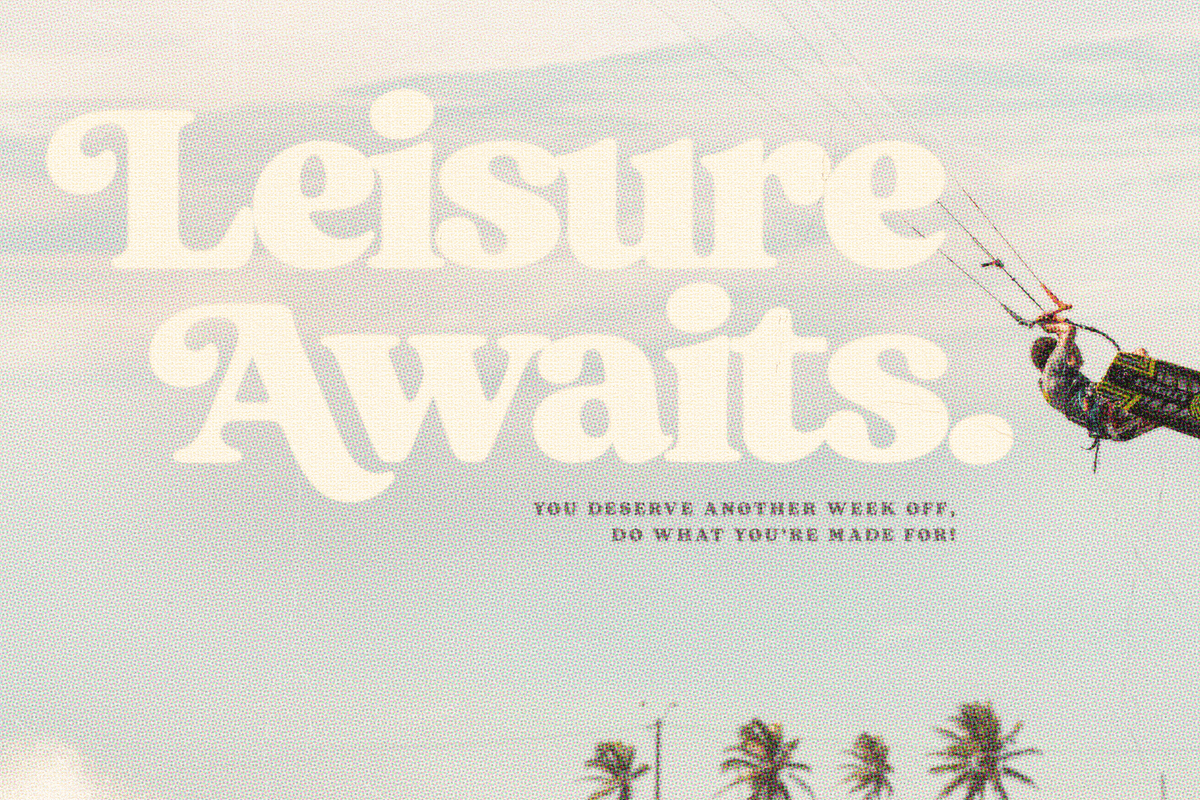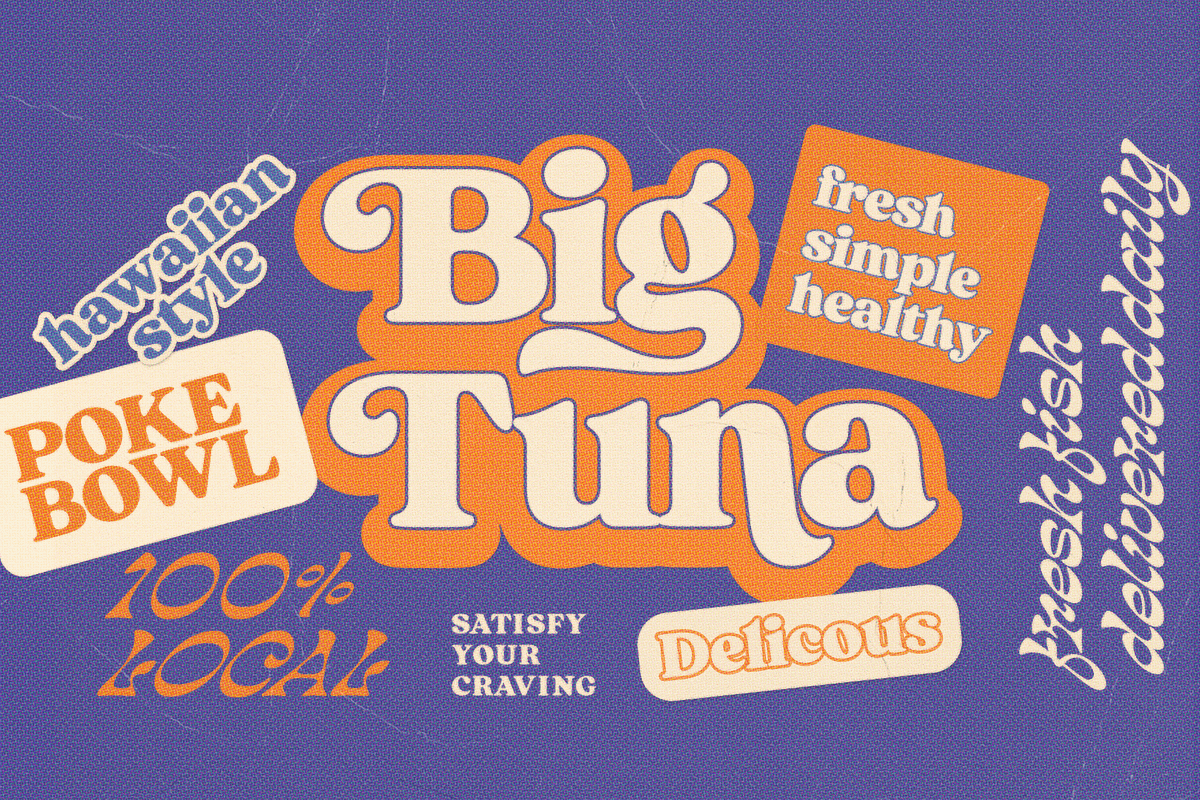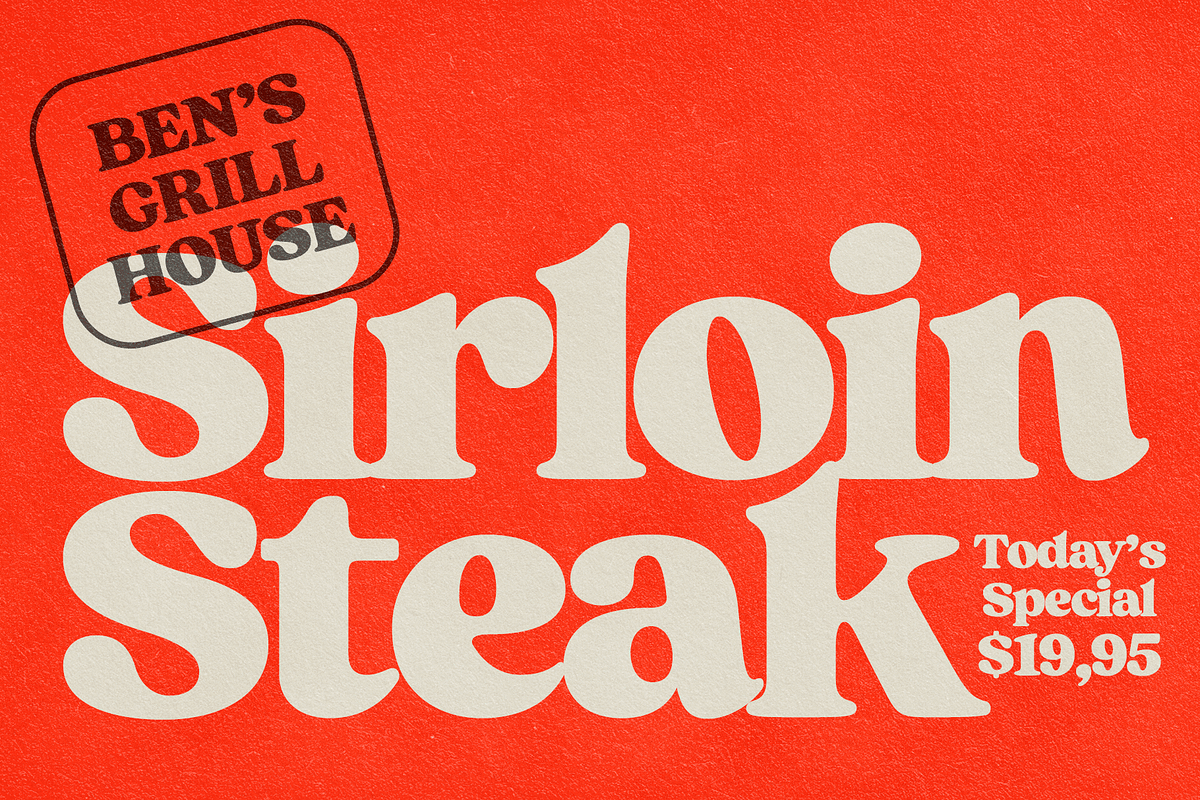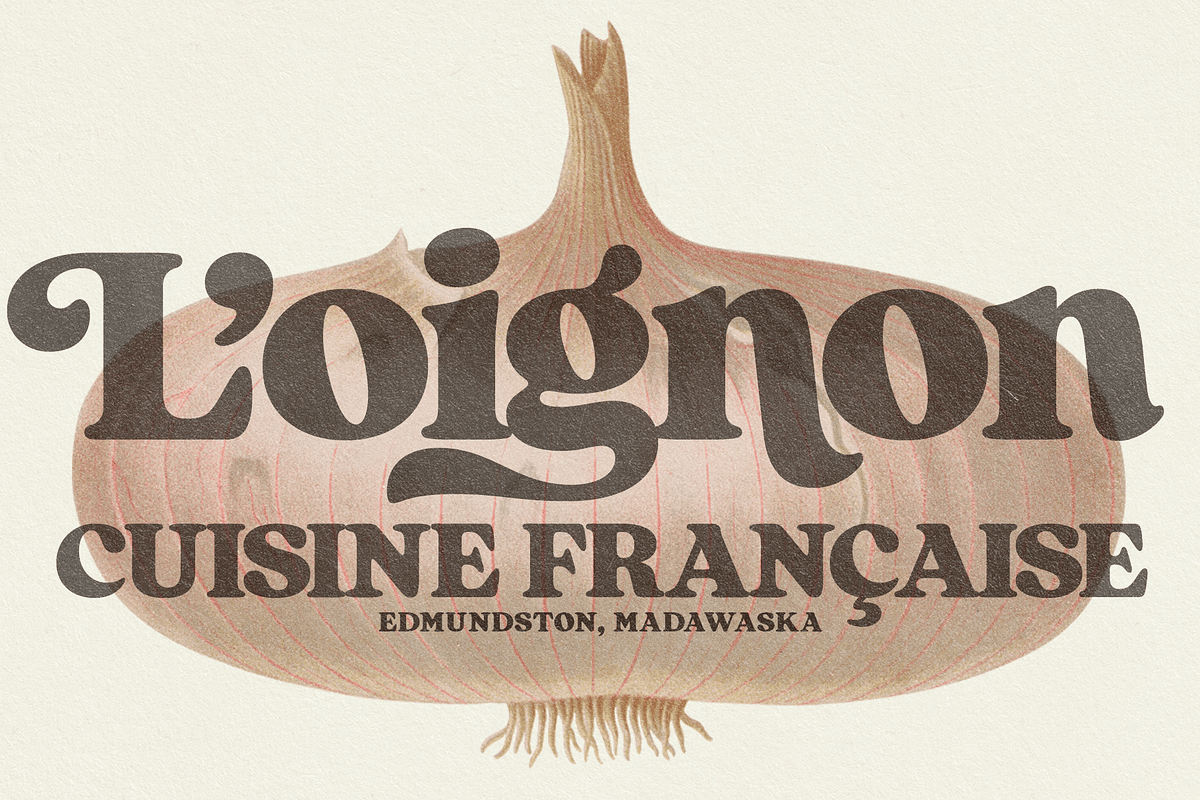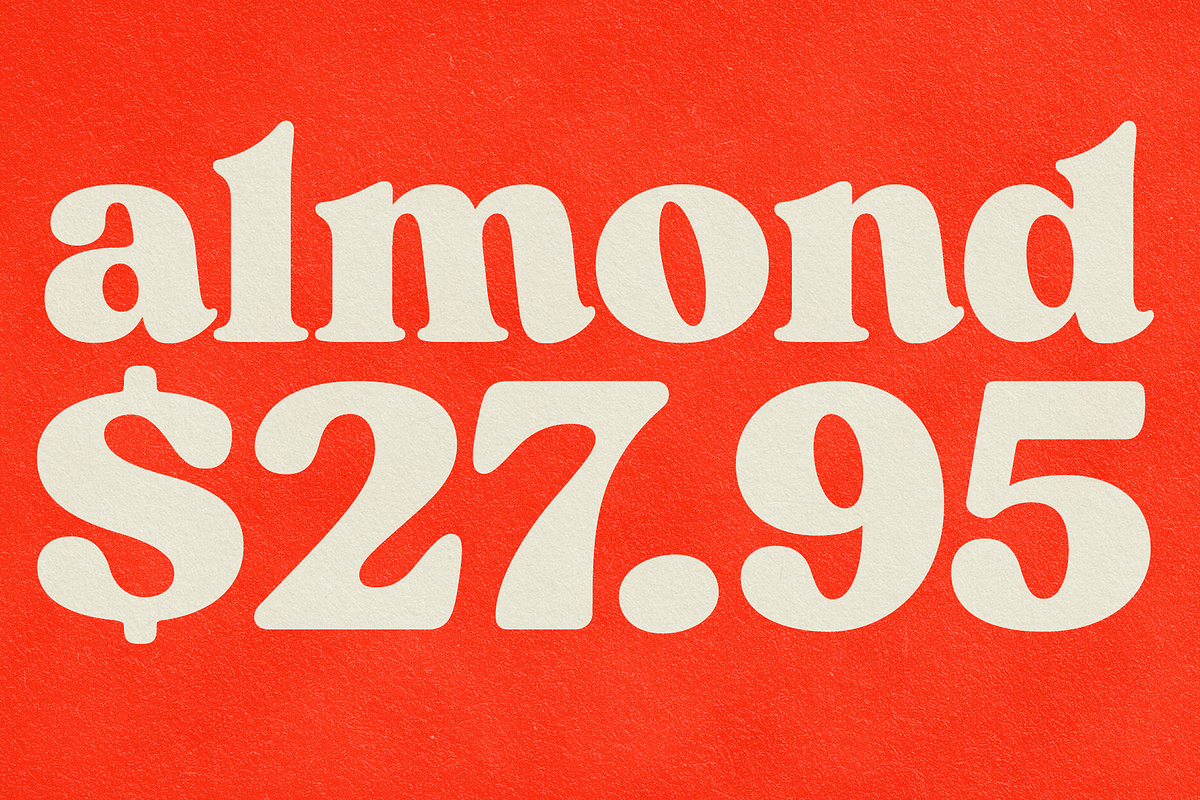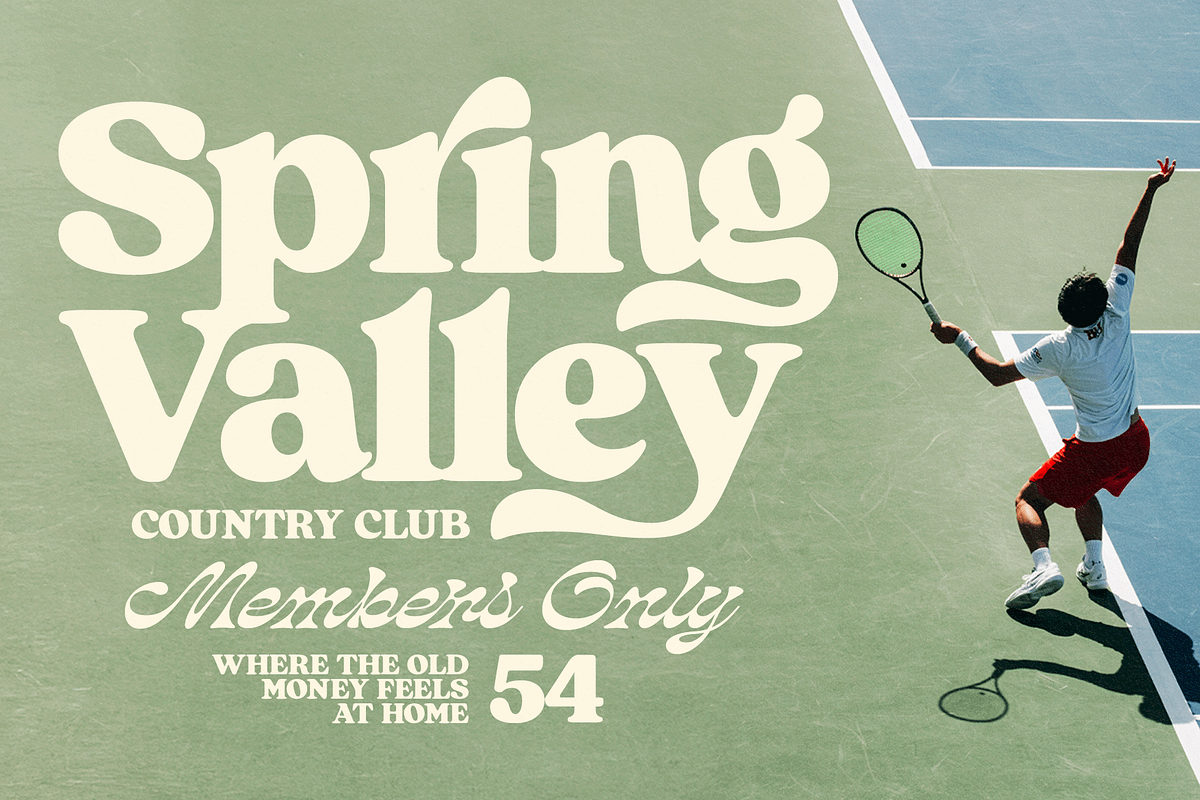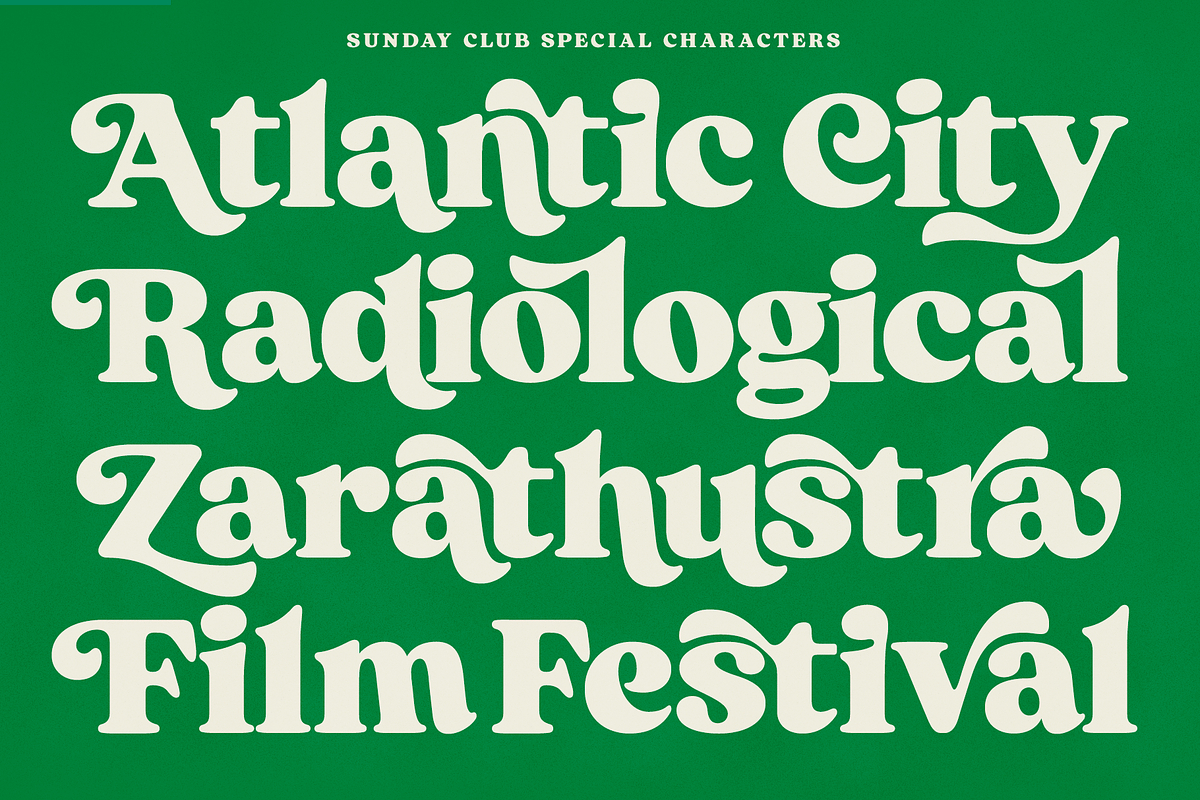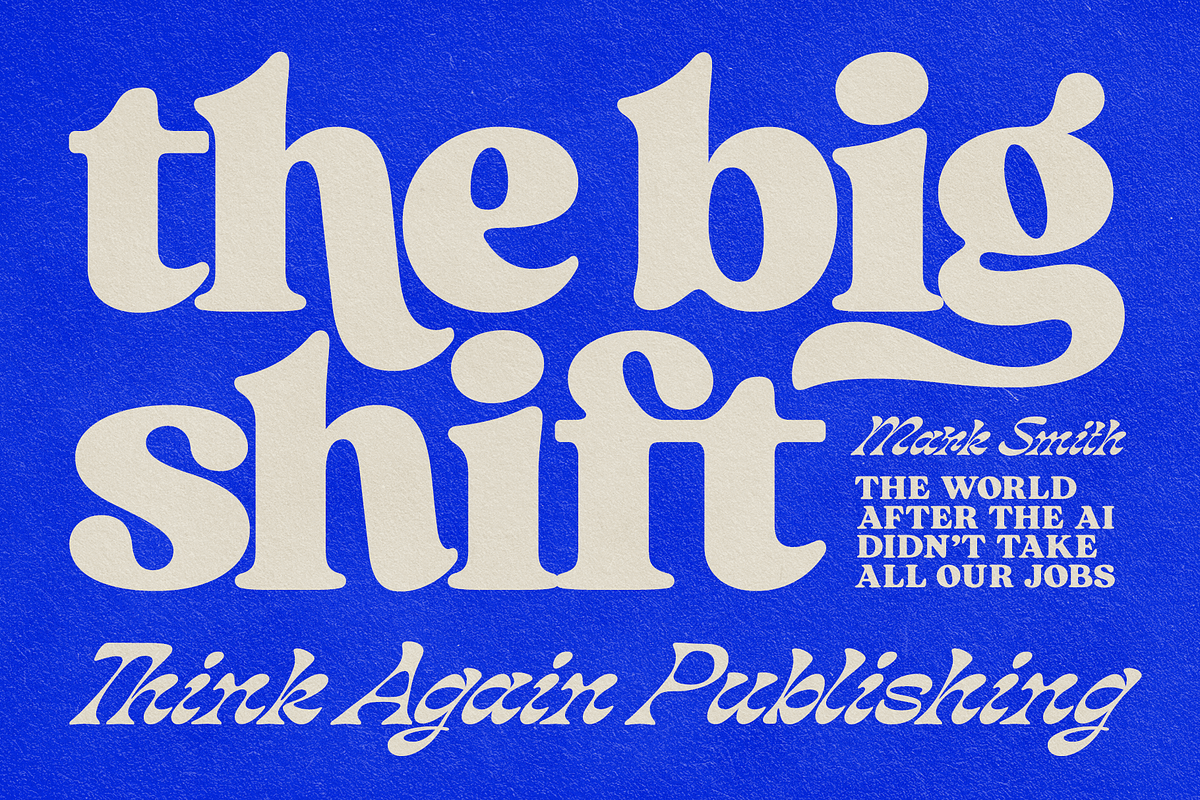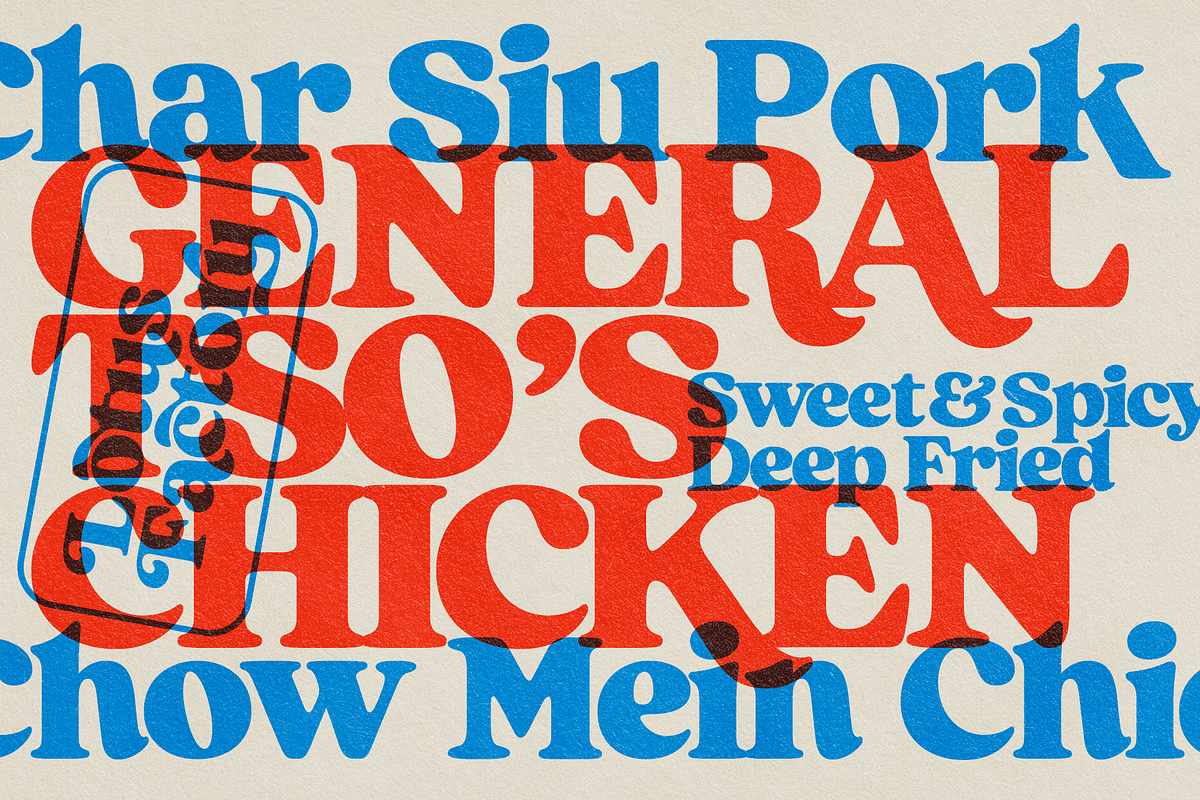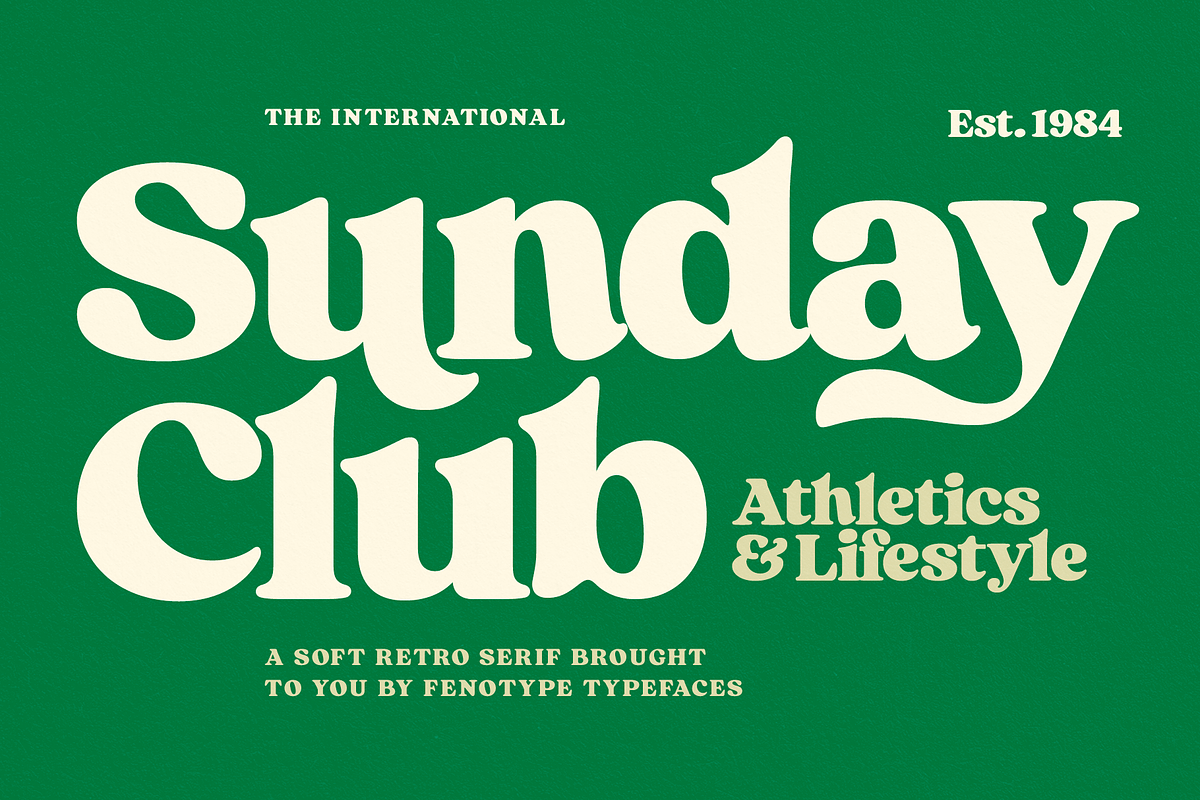
Sunday Club - Retro Serif
Sunday Club is a blend of warm nostalgia and nonchalant upper-middle class confidence. It’s design is rooted in history but polished for today’s requirements. Sunday Club’s style is equipped with total over 110 alternate characters set in various OpentType features: Swash, Stylistic and Titling Alternates for more swashy letters, Standard ligatures for f_f etc. and Discretionary Ligatures for a few unconventional ligatures. Even more extras available from Stylistic Set 1-5.